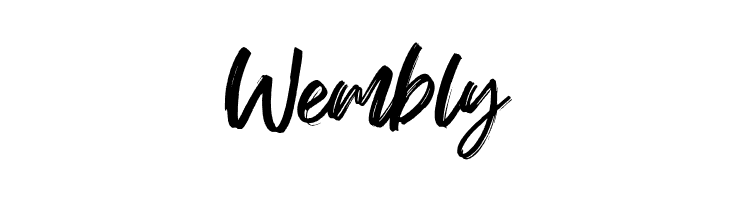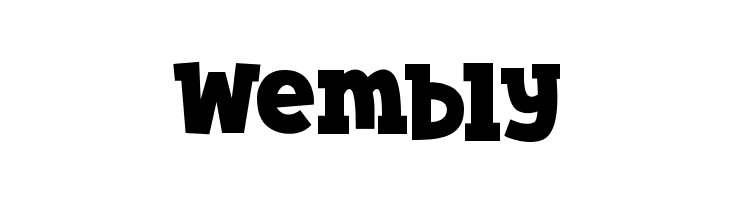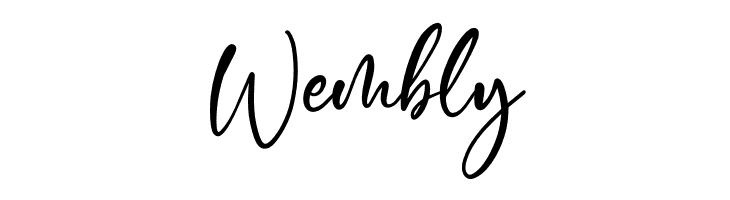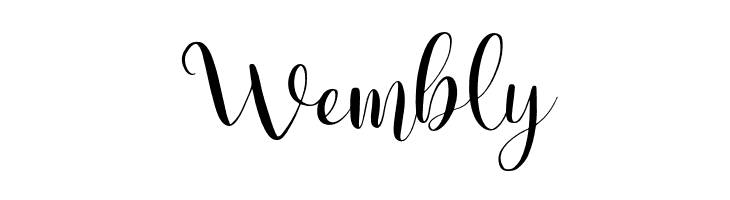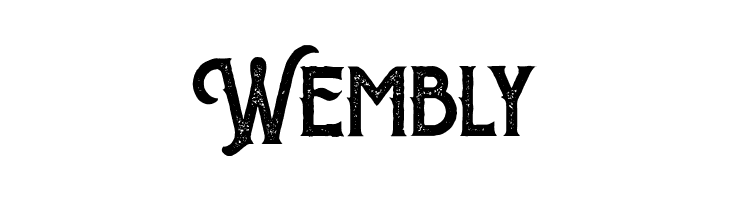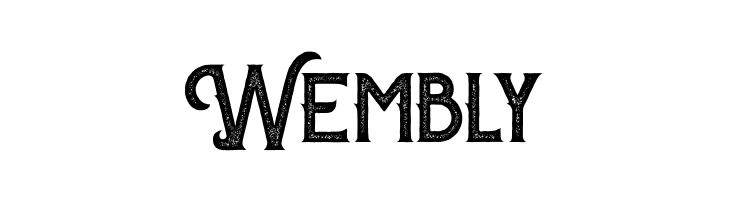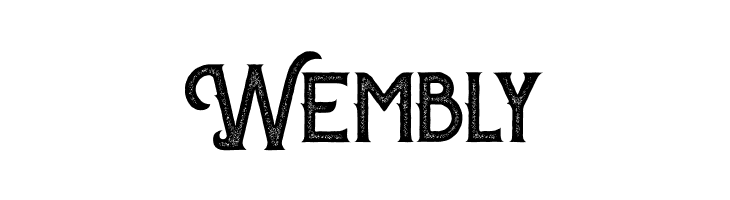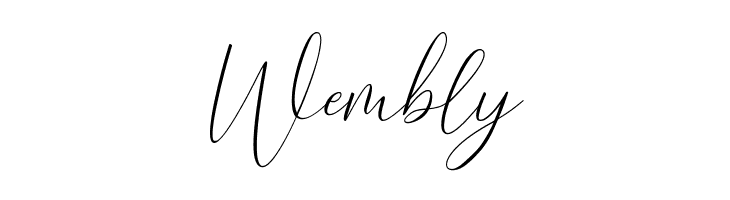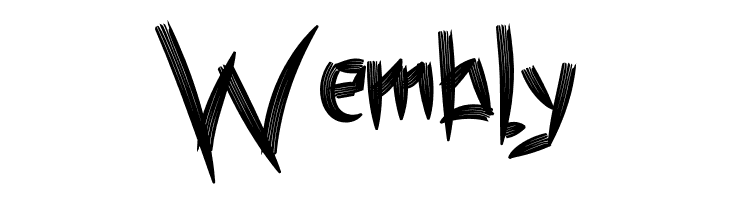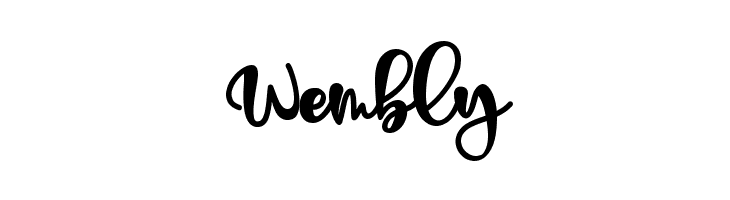
SheruPro Font
Font by Aleksander Shevchuk - www.aleksandershevchuk.ru
Sherwood Forest Font
Ornate, distressed decorative display font with vintage flair.
Sherwood Regular Font
A bold, medieval-inspired font with sharp angles and smooth curves.
Sheryl (Demo) Font
A lively, handwritten font with fluid, elegant characters and a personal touch.
Sheryl Regular Font
Font by Altsys Metamorphosis
A playful, hand-drawn font with bulbous terminals and irregular strokes.
SheTerror Demo Regular Font
A bold, dynamic script font with a hand-drawn, energetic style.
Shetilo Font
A classic serif font with elegant, refined characters and thin serifs.
Shettricka Font
A graceful and elegant cursive script font with flowing, interconnected strokes.
Shettricka Font
An elegant, flowing script font with a handwritten appearance.
Shevana Font
A flowing, cursive font with elegant, sweeping strokes and a handwritten appearance.
sheyla Font
An elegant, flowing script font with modern, decorative elements.
Sheylamte Font
Font by Letterena Studios
A fluid, handwritten font with a natural and elegant cursive style.
Sheyna Font
Halim Antoni - fontbundles.net/halimstudio
A decorative script font with elegant swirls and a playful, handwritten style.
Sheyna Font
An elegant script font with flowing, cursive strokes and decorative flourishes.